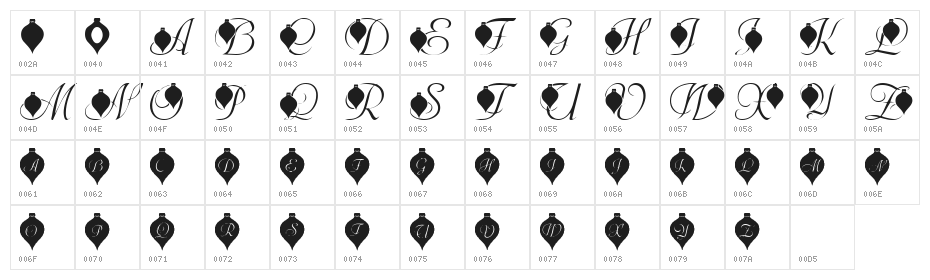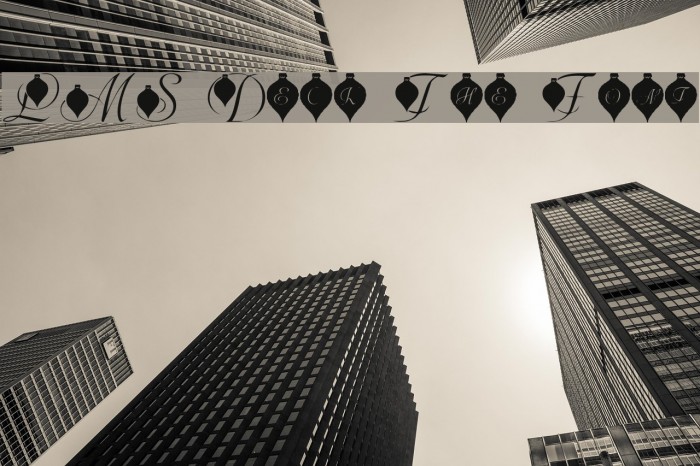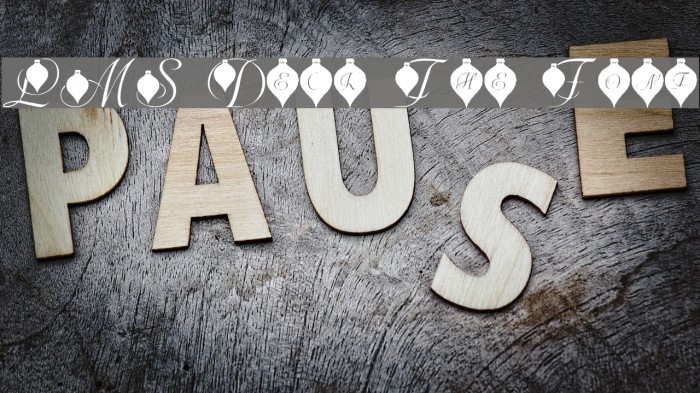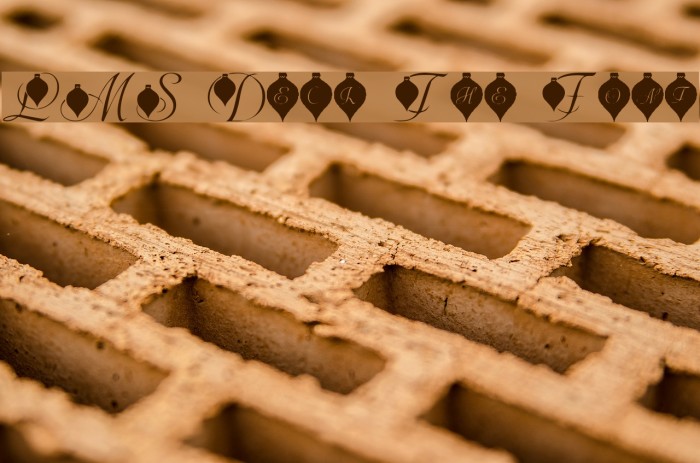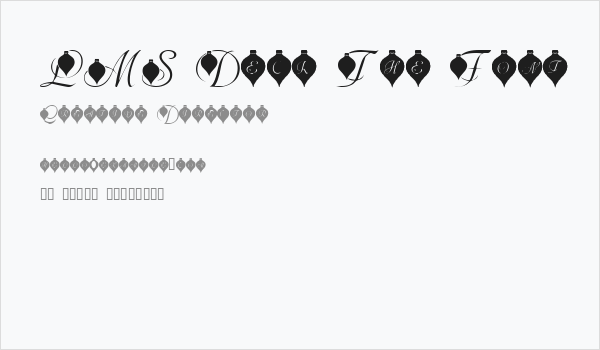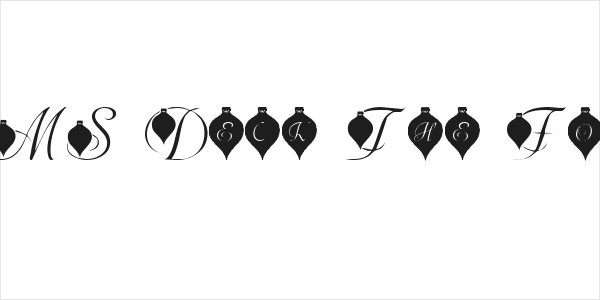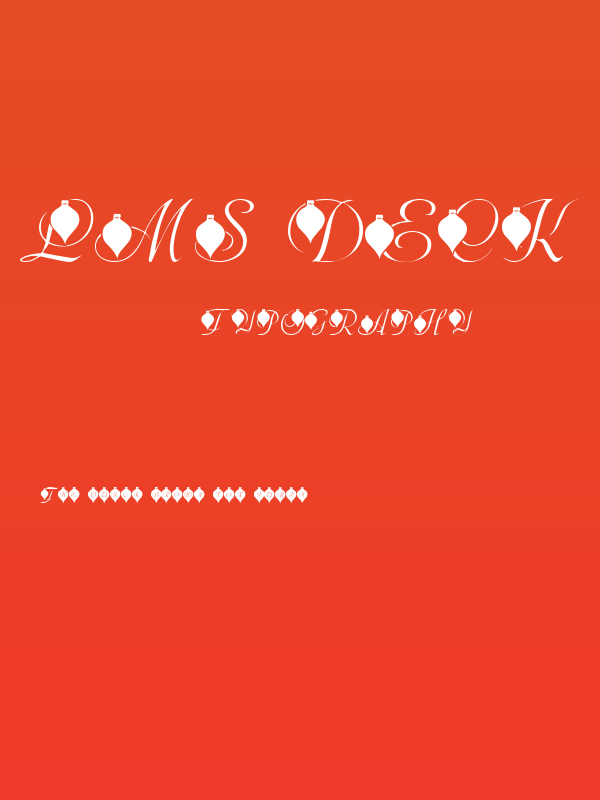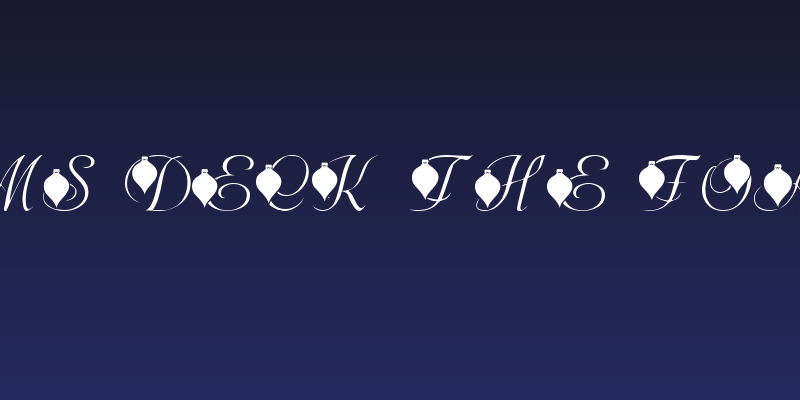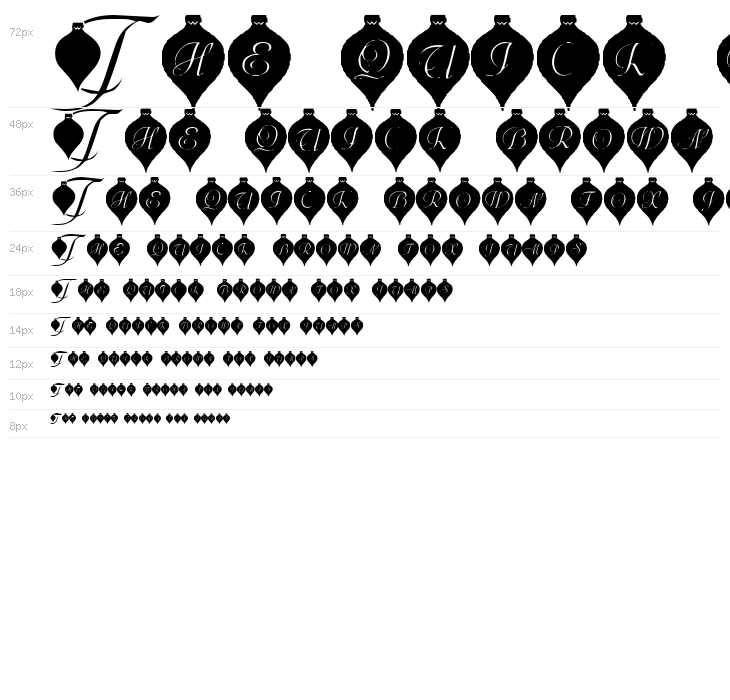
LMS Deck The Font Font
LMS Deck The Font Description
This font features an elegant and decorative style, reminiscent of holiday ornaments. Each letter is encased within a stylized ornament shape, adding a festive and ornamental touch. The script-like characters are fluid and graceful, with a high contrast between thick and thin strokes, enhancing their sophisticated appearance. The uppercase letters are prominently displayed within the ornament shapes, creating a unique and eye-catching design. This font is perfect for holiday-themed projects, invitations, and decorative purposes where a touch of elegance and festivity is desired.
| Proposed Projects | Ideal for holiday cards, festive invitations, decorative posters, and seasonal branding. |